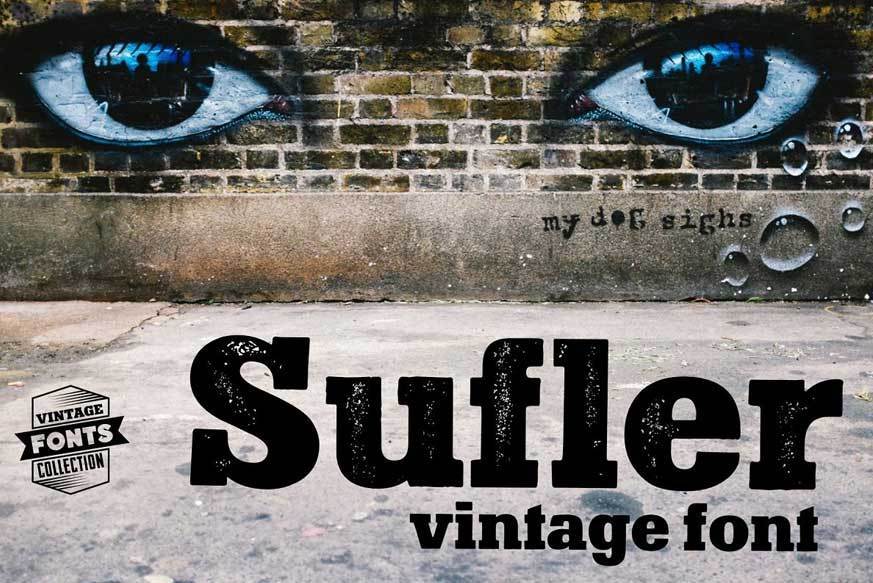
Sufler Font
Sufler is a set of 2 hand-drawn fonts inspired by vintage ads, old newspapers and retro sign painting. Every lowercase letter has three variations.
When the font is used in OpenType-savvy applications, the 3 variants of glyphs are automatically alternated to achieve a random-like effect.